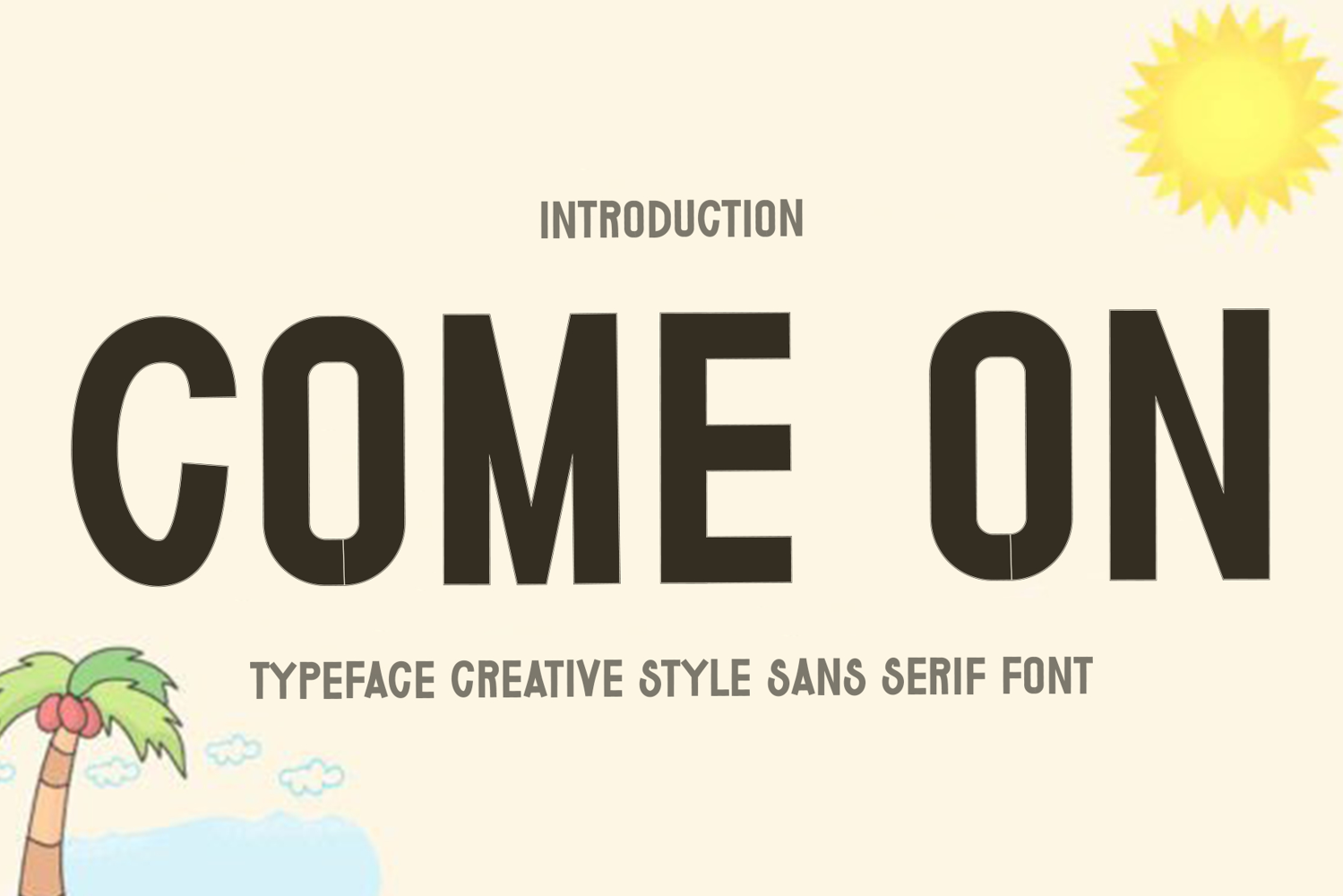
come on
come on is a beautiful and eye-catching font designed with a soft, unique touch. Its distinctive strokes give it a special character, making it meaningful and versatile for future use. With various characters, it’s perfect for design projects, crafts, and other creative works.